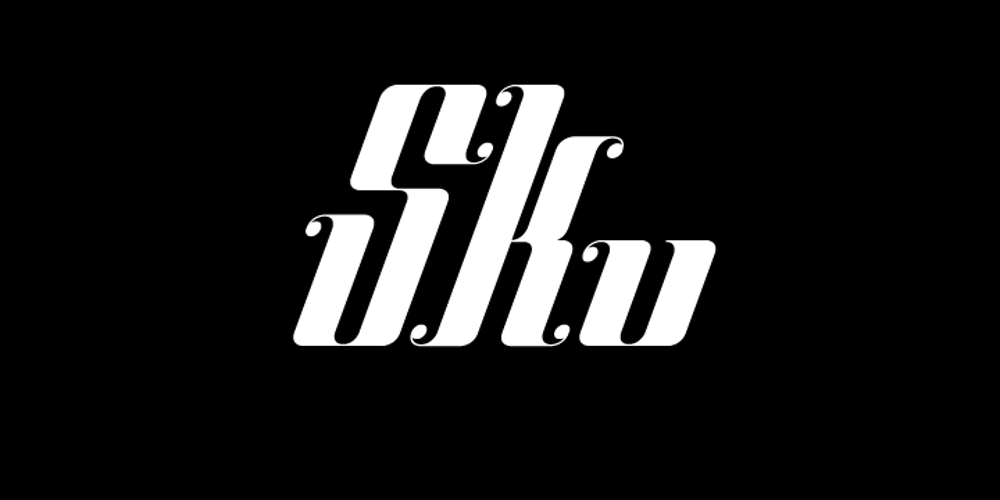
Alt Sku
Alt Sku font
Alt Sku Font Family was designed by Andreas Leonidou and published by ALT. Alt Sku contains 2 styles and family package options. Sku typeface is a elegant display font and comes in 2 styles: Regular & Italic.